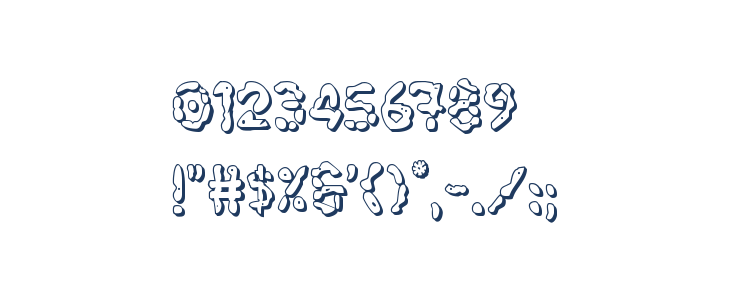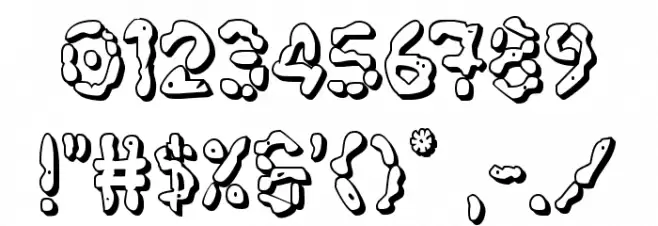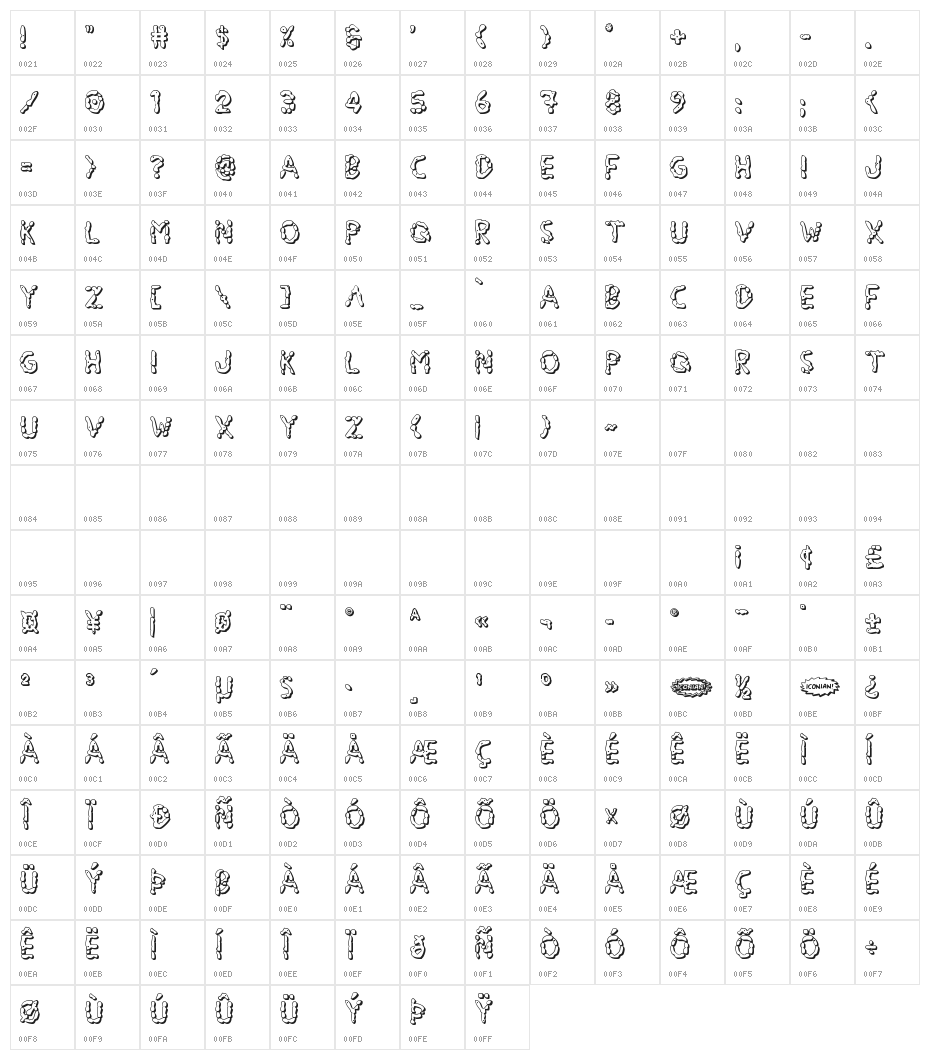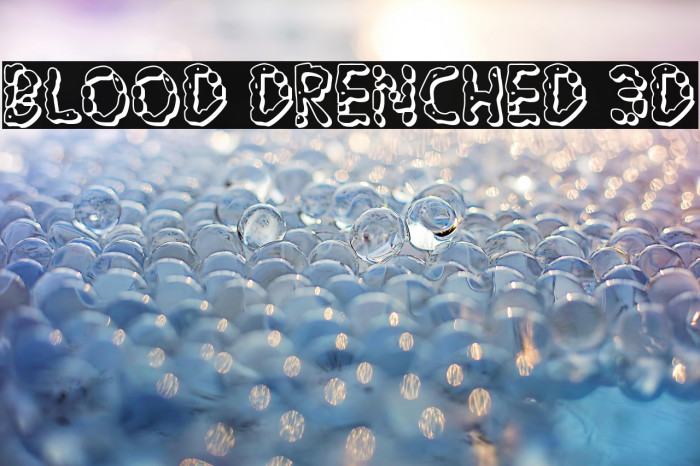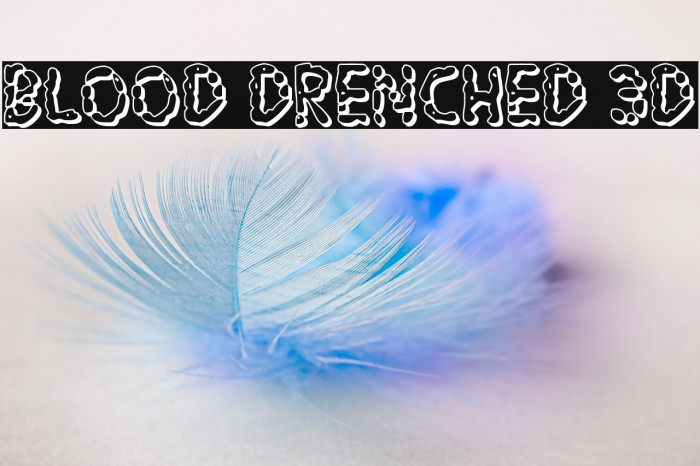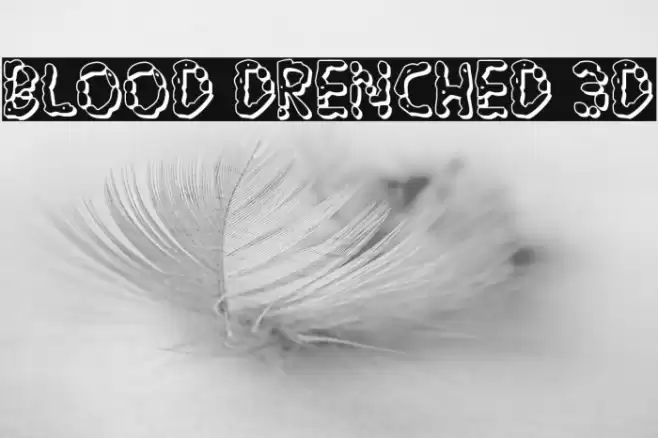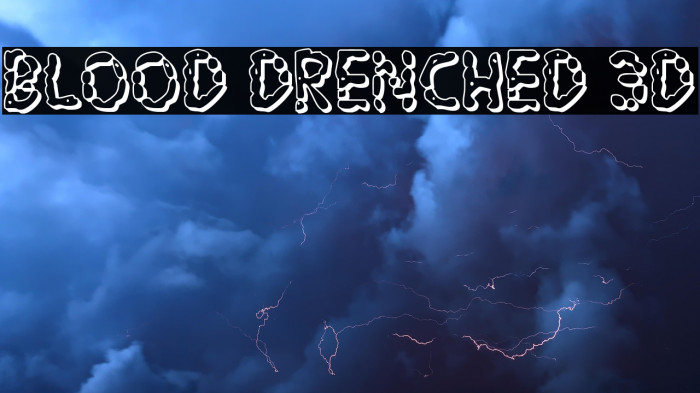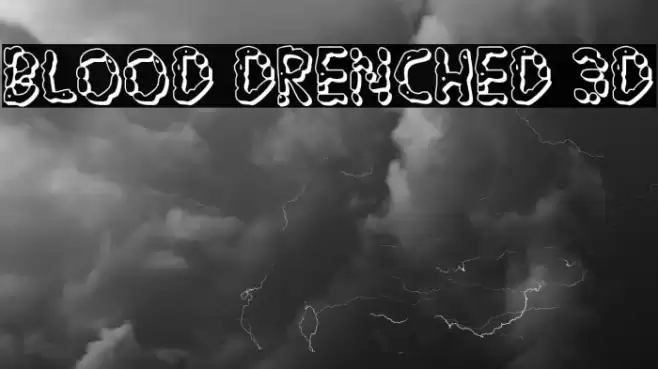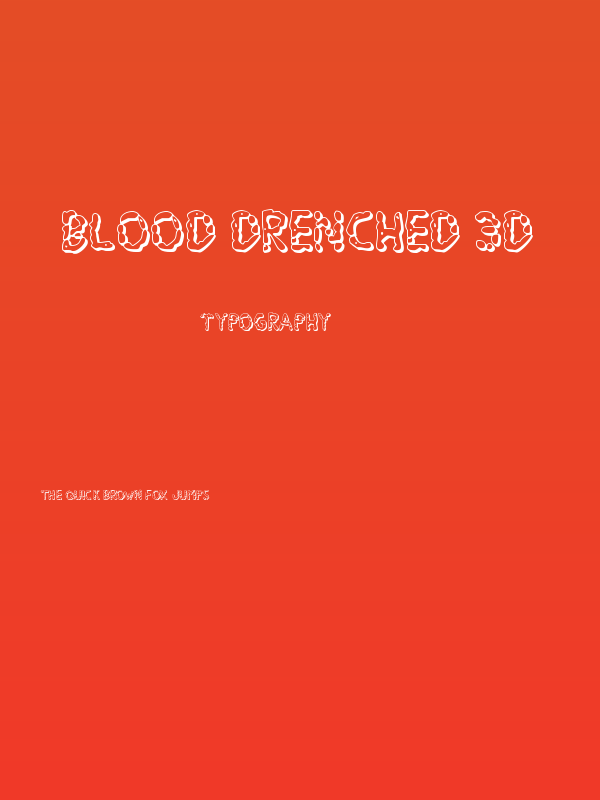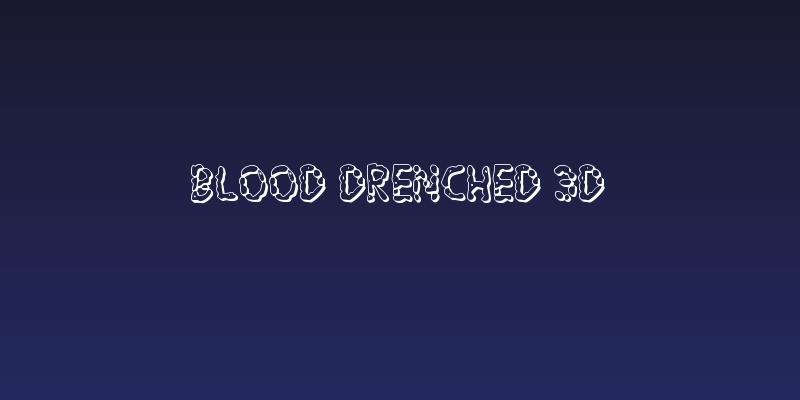
Blood Drenched 3D Font
Blood Drenched 3D Description
This font features a unique and dramatic design, reminiscent of dripping liquid or blood, giving it a three-dimensional appearance. The letters are bold and irregular, with a playful yet eerie vibe. Each character seems to have a life of its own, with varying thickness and a sense of movement. The font captures attention with its unconventional style, making it ideal for themes that require a touch of horror or fantasy. Its distinctiveness lies in the organic shapes and the illusion of fluidity, making it stand out in any design project.